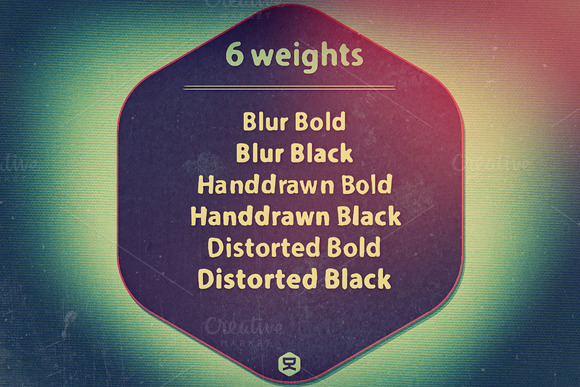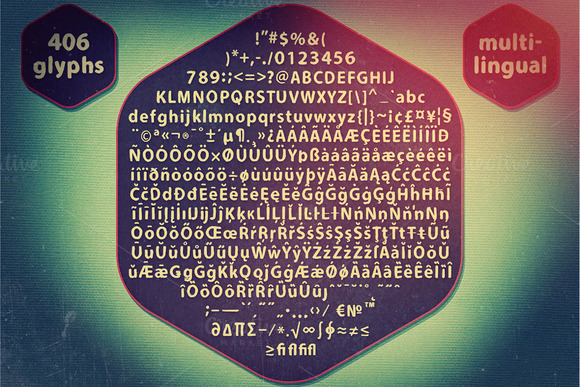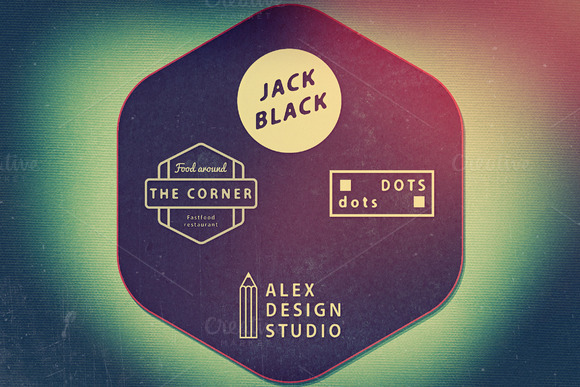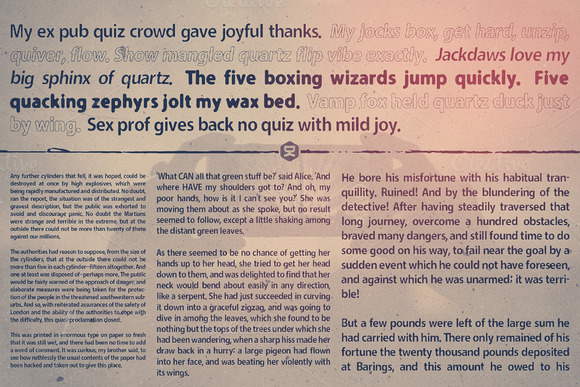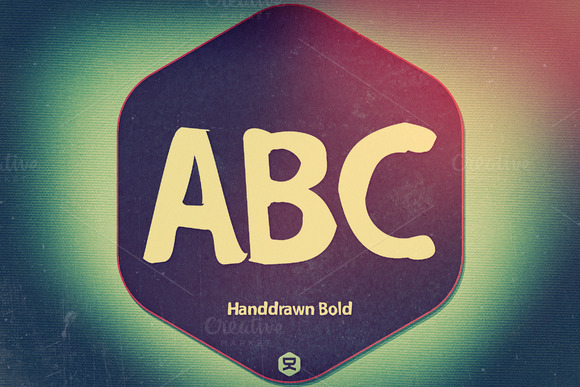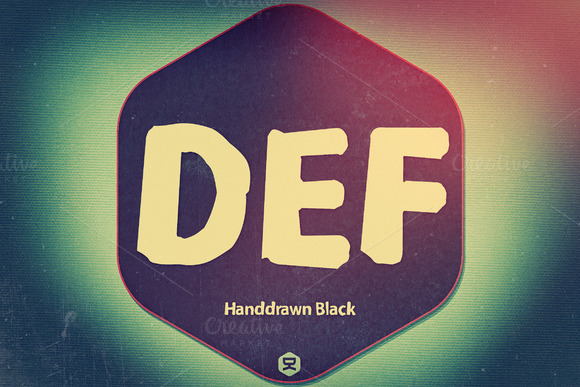
Introducing Carson Font: A Distorted, Handwritten, and Blurred Collection
Are you a designer or crafter looking for a unique and versatile font to elevate your creative projects? Look no further than the Carson Font, a stunning collection of distorted, handwritten, and blurred variants of the original Carson font. In this article, we’ll dive into the world of Carson Font, exploring its features, uses, and benefits for designers and crafters alike.
What is Carson Font?
Carson Font is a creative and artistic font collection that offers a range of distorted, handwritten, and blurred variants of the original Carson font. This font is perfect for those who want to add a personal touch to their designs, making them stand out from the crowd. With its unique and eclectic style, Carson Font is ideal for a variety of creative projects, from headings and logos to invitations, t-shirt designs, and more.
Features of Carson Font
So, what makes Carson Font so special? Here are some of its key features:
- Distorted, handwritten, and blurred variants: The Carson Font collection offers a range of distorted, handwritten, and blurred variants of the original font, giving you plenty of options to choose from.
- Versatile and flexible: Carson Font can be used for a wide range of creative projects, from headings and logos to invitations, t-shirt designs, and more.
- Unique and eclectic style: The Carson Font has a distinctive and artistic style that will add a personal touch to your designs.
Uses of Carson Font
So, what can you use Carson Font for? The possibilities are endless! Here are some ideas to get you started:
- Headings and titles: Use Carson Font to create eye-catching headings and titles for your designs, such as posters, flyers, and brochures.
- Logos and branding: Create a unique and memorable logo for your business or brand using Carson Font.
- Invitations and greeting cards: Add a personal touch to your invitations and greeting cards with Carson Font.
- T-shirt designs: Create custom t-shirt designs using Carson Font, perfect for personal use or as a gift.
- Posters and labels: Use Carson Font to create eye-catching posters and labels for your products or services.
- Book covers and brochures: Add a creative touch to your book covers and brochures with Carson Font.
Benefits of Using Carson Font
So, why should you use Carson Font for your creative projects? Here are some benefits:
- Stand out from the crowd: Carson Font’s unique and eclectic style will help your designs stand out from the crowd.
- Save time and effort: With Carson Font, you can create professional-looking designs quickly and easily.
- Increase creativity: The distorted, handwritten, and blurred variants of Carson Font will inspire your creativity and help you think outside the box.
- Perfect for crafters and designers: Carson Font is ideal for crafters and designers who want to add a personal touch to their creations.
In conclusion, Carson Font is a versatile and creative font collection that offers a range of distorted, handwritten, and blurred variants of the original Carson font. With its unique and eclectic style, Carson Font is perfect for designers and crafters who want to add a personal touch to their creative projects. Whether you’re creating headings, logos, invitations, t-shirt designs, or more, Carson Font is the perfect choice. So why wait? Download Carson Font today and start creating stunning designs that will leave a lasting impression!
Carson Extra: A Collection of Distorted, Handwritten, and Blurred Variants
Carson Extra is a special collection of distorted, handwritten, and blurred variants of the original Carson font. This collection offers even more creative options for designers and crafters, including:
- Distorted variants: Add a touch of grit and texture to your designs with Carson Extra’s distorted variants.
- Handwritten variants: Create a personal and human touch with Carson Extra’s handwritten variants.
- Blurred variants: Add a sense of movement and energy to your designs with Carson Extra’s blurred variants.
With Carson Extra, you can take your designs to the next level and create truly unique and eye-catching creations. Whether you’re a professional designer or a crafter, Carson Extra is the perfect addition to your font collection.